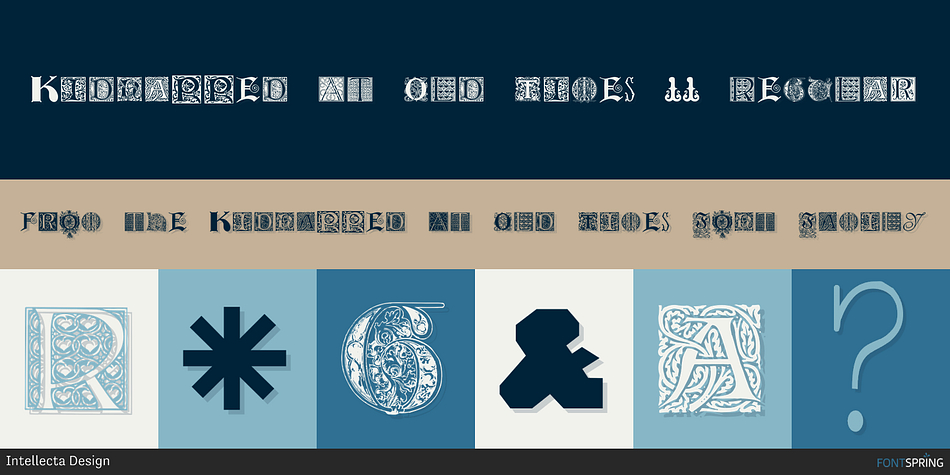
Kidnapped At Old Times 11 Regular
Kidnapped At Old Times is a monograms and blackletter font family. This typeface has forty-one styles and was published by Intellecta Design.
Kidnapped at Old Times, by Intellecta Design, is a collection of 41 fonts (and growing) of some of the most decorative caps we have ever carried.
Decorative caps can capture the attention of anyone when used well. These caps are remarkably interesting and very detailed. So many to choose from - the entire family has over 2000 exotic, intricate and historical letters.